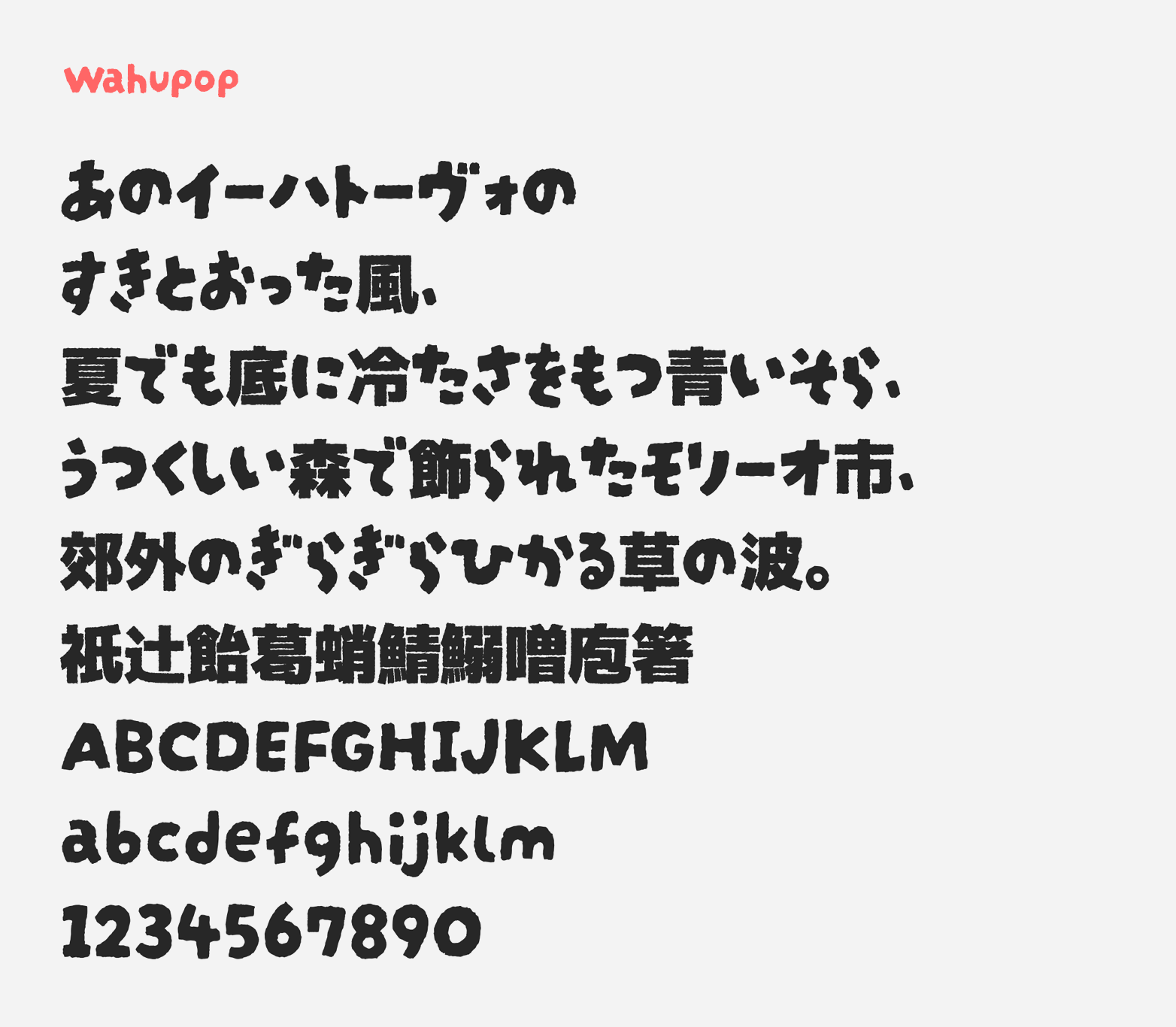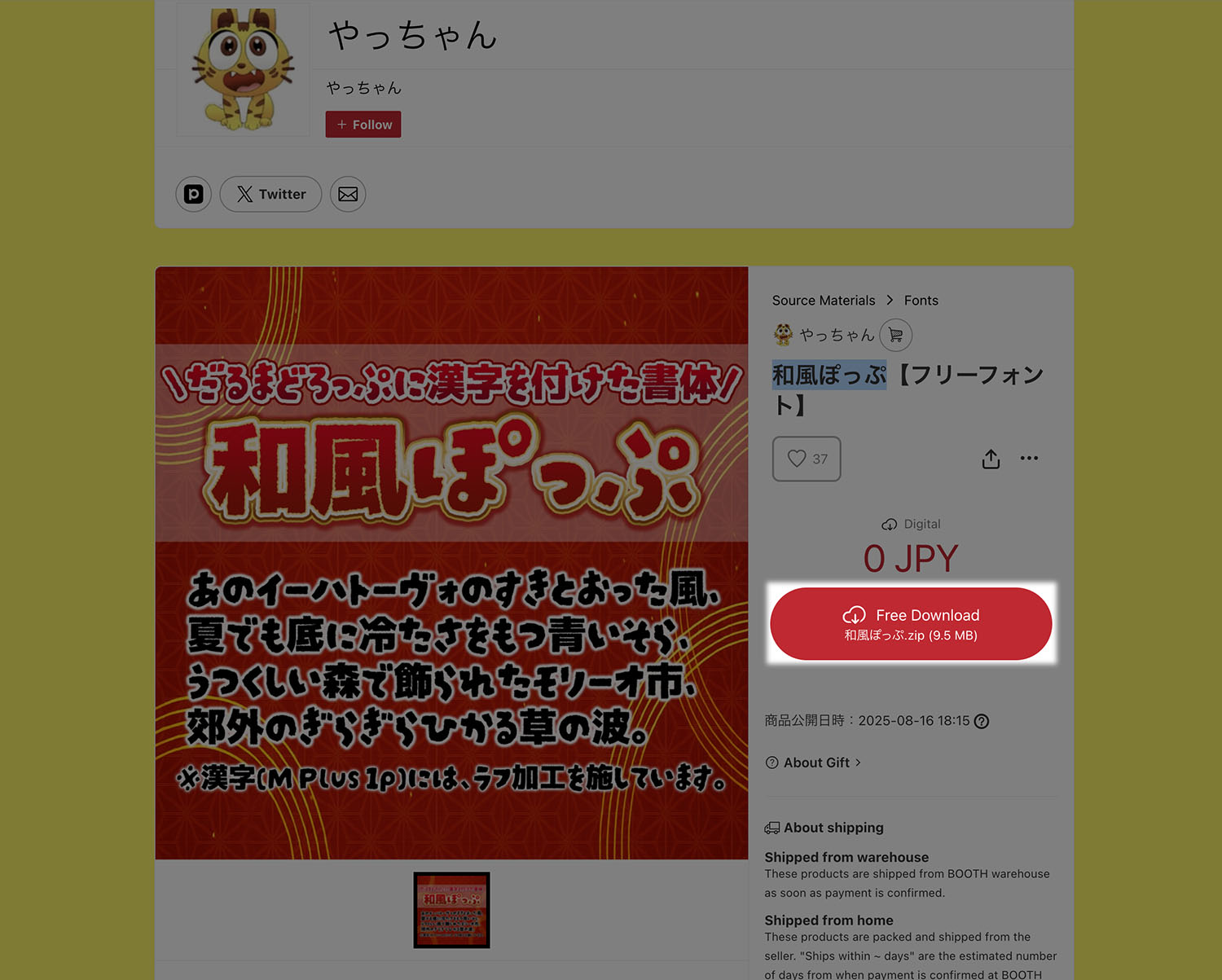
Wahupop
Wahupop (和風ぽっぷ) is a bold Japanese pop style display font that is free to download. It combines the characters of the font Darumadrop One from Maniackers Design where it is an open-source font you can find on Google Fonts, and supplemented with the kanji characters from another open source font: M+ 1p (particularly with the black font weight). To match the vibe of the Darumadrop one, the kanji characters are “roughened” to create that ragged feel before combining. I would say they matched pretty well from the font weight and the texture perspective.
Wahupop is suitable for display style presentation with large font sizes to fully showcase the textures, the playfulness while maintaining the readability. Since this font is a combination of two open-source fonts, this font is released as an open-source font too, under SIL Open Font License. This means you can use it for personal and commercial projects. In my opinion, this font could be a suitable font to bring out the traditional Japanese style look.
- Hiragana and Katakana
- Kanji
- Alphanumerics
- Latin characters
- Symbols and Punctuations